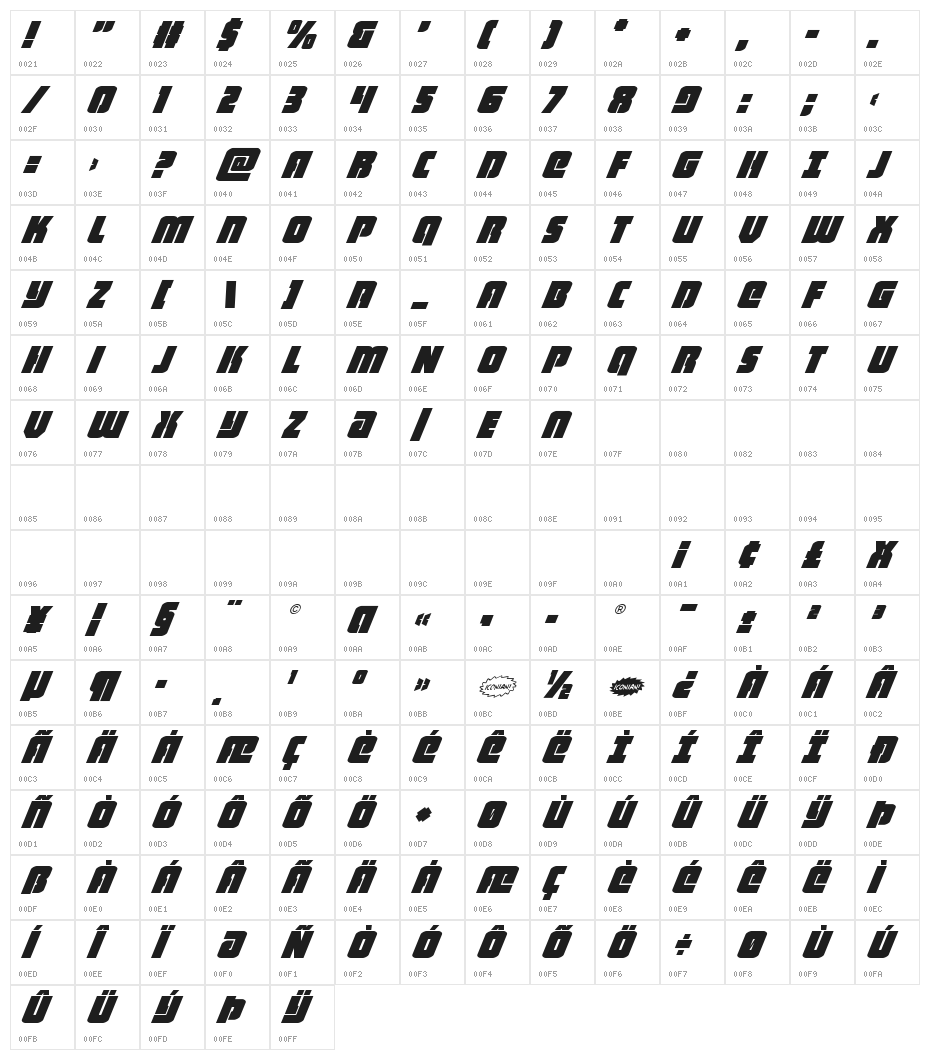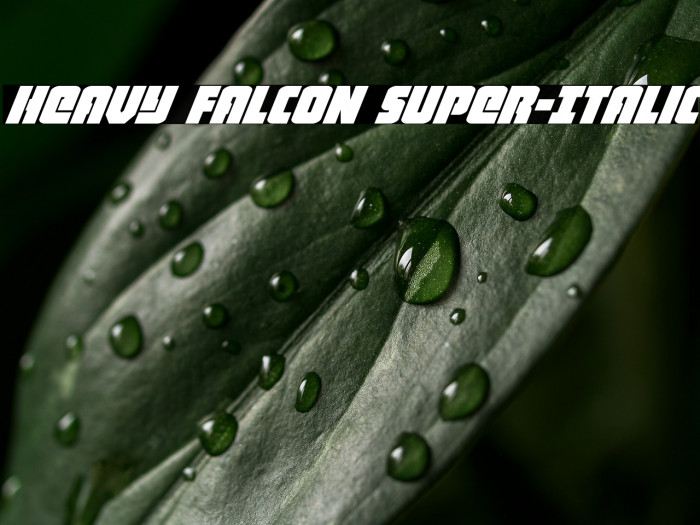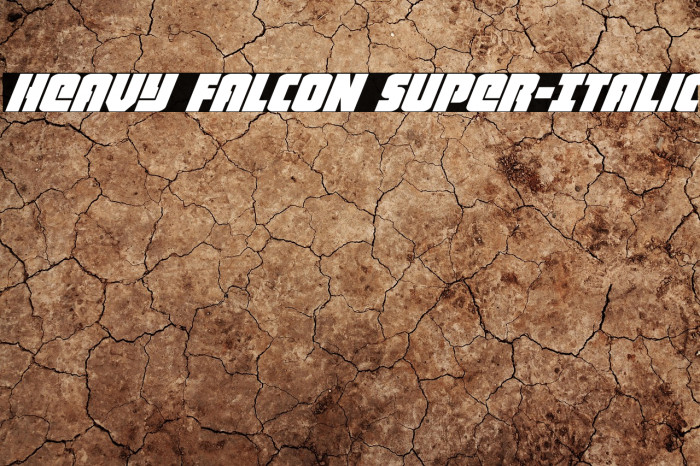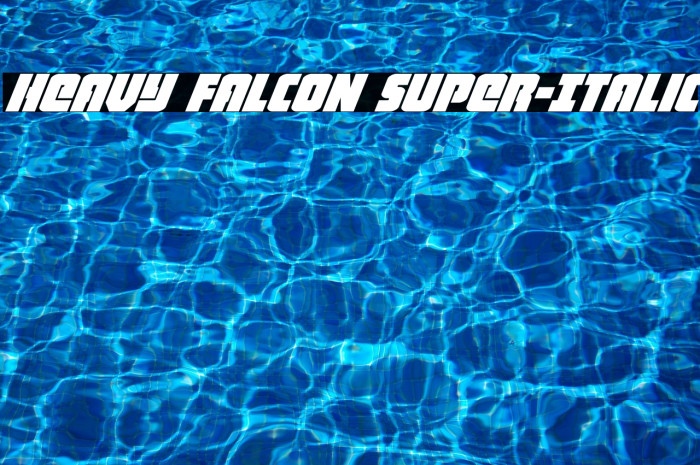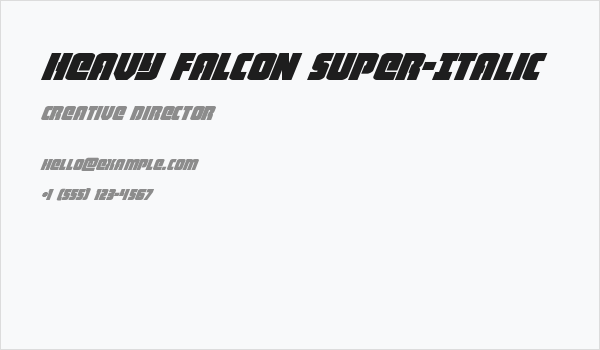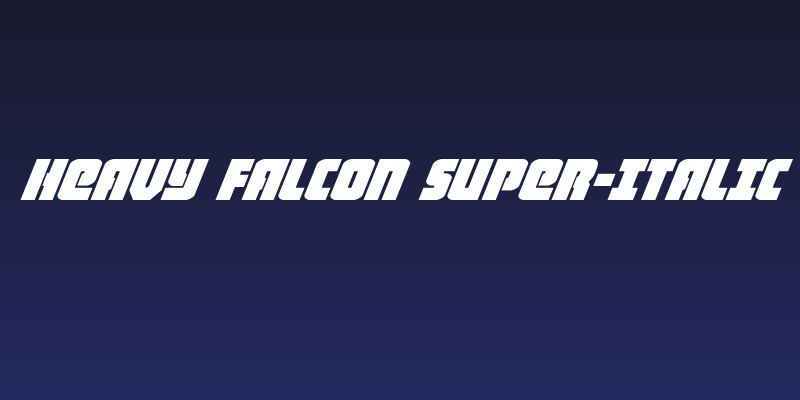
Heavy Falcon Super-Italic Font
Heavy Falcon Super-Italic Description
This font features a bold and dynamic style with a strong italic slant, giving it a sense of motion and energy. The characters are heavily weighted, providing a robust and impactful appearance. The design incorporates sharp angles and clean lines, contributing to a futuristic and modern aesthetic. The uppercase and lowercase letters maintain a consistent style, with the numerals and special characters following suit. This font's boldness and unique style make it stand out, suitable for projects that require a strong visual impact.
Proposed ProjectsIdeal for sports branding, automotive designs, video game titles, and dynamic posters.